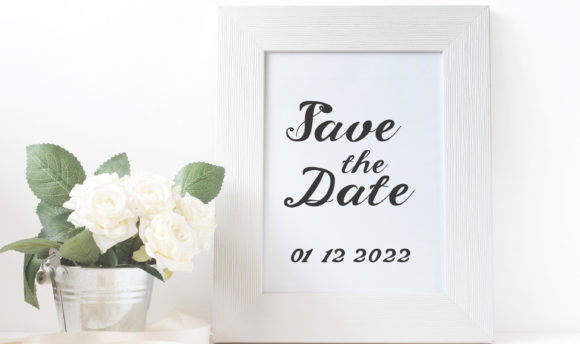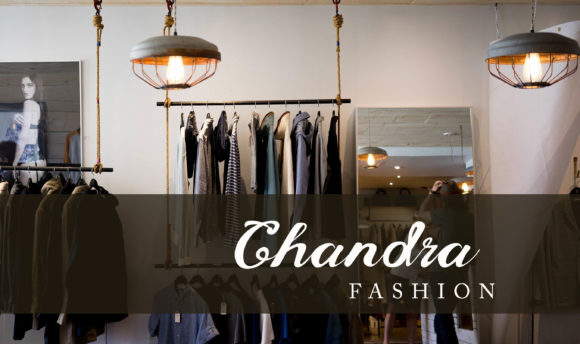
Introduction to Heliopatra Font
Have you ever been stuck on a creative project, desperately searching for the perfect font to bring your design to life? You spend hours browsing through fonts, trying to find that elusive perfect combination of style and elegance. For designers like you, the right font can be the difference between a good design and a great one.
That’s where the Heliopatra Font comes in – a beautiful and modern handwritten font that exudes an air of sophistication and refinement. With its elegant look, this font is perfect for designers who want to add a touch of high quality and sophistication to their digital products or print designs.
Whether you’re working on a new project or just need a design resource to give your existing work a boost, the Heliopatra Font is an excellent choice. And the best part? It’s available for free download, making it an accessible and valuable addition to any designer’s toolkit.
Key Features of Heliopatra Font
- High-quality design resource ideal for creative projects requiring a unique touch
Honest Review: Heliopatra Font
I recently came across the Heliopatra Font and was excited to give it a try. As a designer, I’m always on the lookout for high-quality design resources that can help elevate my creative projects. The Heliopatra Font did not disappoint.
- Unique Design**: The Heliopatra Font has a distinctive and elegant design that sets it apart from other fonts. Its intricate details and lines make it perfect for creating a sophisticated look.
- High-Quality Rendering**: The font renders beautifully on both desktop and mobile devices, making it ideal for various design applications.
While the Heliopatra Font is a great resource, there are a few limitations to consider. The font does not support transparent backgrounds, which may limit its use in certain design applications. Additionally, the font’s size may become pixelated at larger sizes, which could be a concern for designers working with high-resolution images.
Overall, the Heliopatra Font is a solid choice for designers looking for a unique and high-quality font. While it may have some limitations, its benefits far outweigh its drawbacks, making it a valuable addition to any design resource collection.
Tips for Getting the Most Out of Heliopatra Font
For the best results, use the Heliopatra Font with a transparent background to create a clean and modern design. You can also experiment with different font sizes and styles to add visual interest to your project.
The Heliopatra Font is a versatile design resource that can be used in a variety of creative projects, such as branding, marketing materials, and educational resources. With its high-quality design and free download, it’s an ideal choice for designers and non-designers alike.
Does the Heliopatra Font have a transparent background?
Yes, the Heliopatra Font has a transparent background, making it ideal for use on top of images or other design elements. This feature allows for greater flexibility and creativity in your design projects.